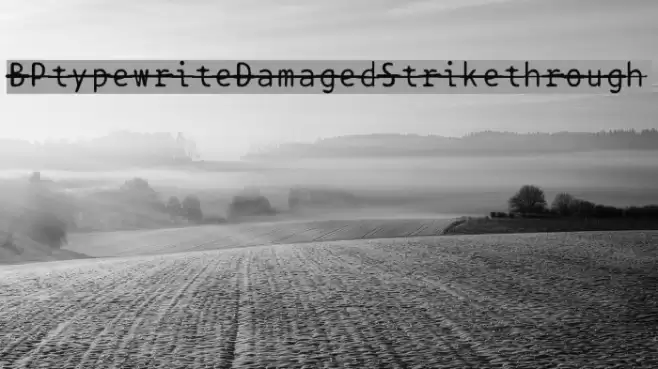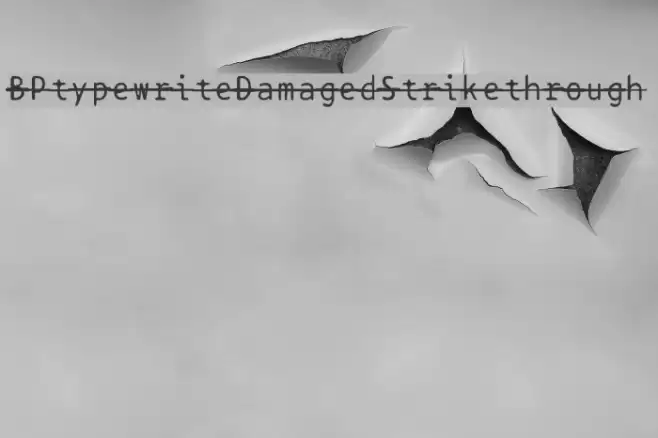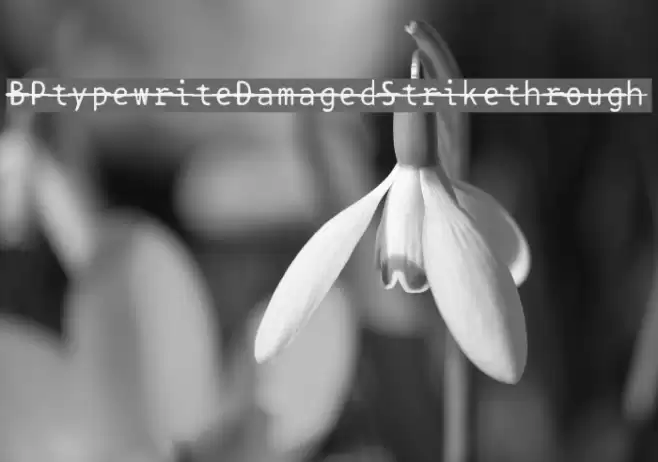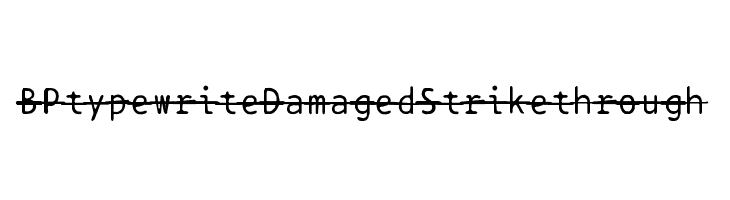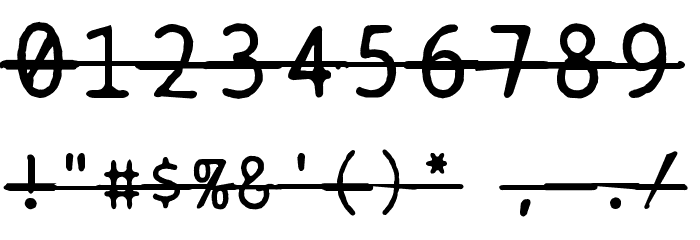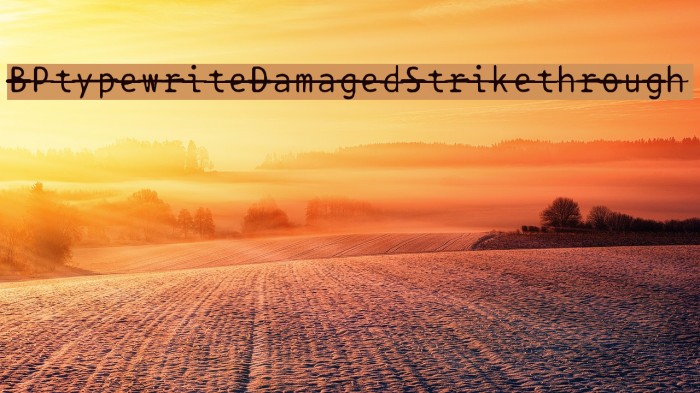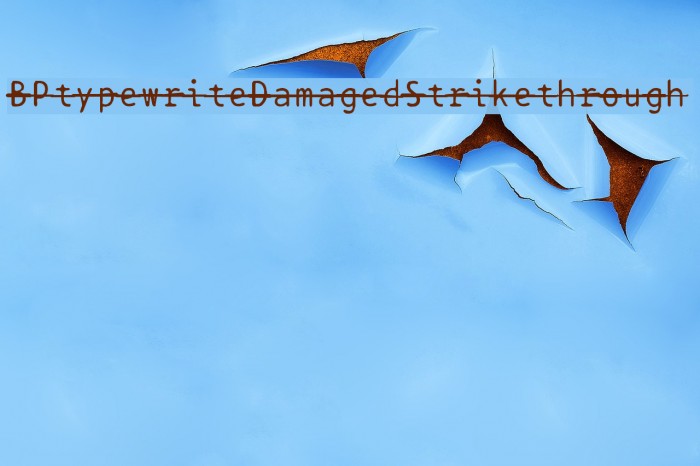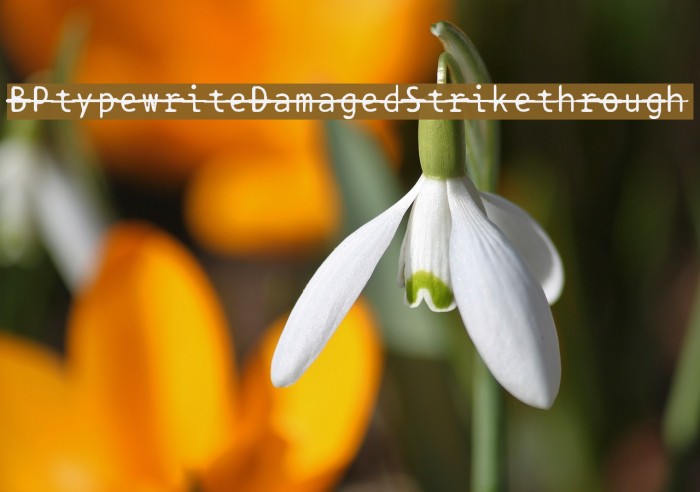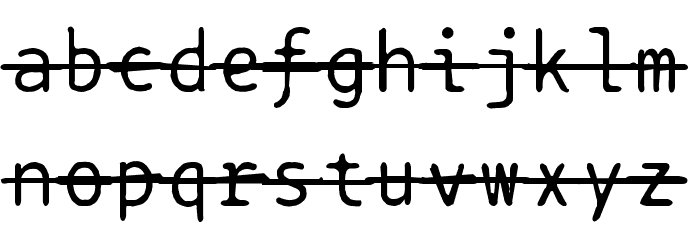
BPtypewriteDamagedStrikethrough Font
BPtypewriteDamagedStrikethrough Description
This font features a unique typewriter style with a distressed, strikethrough effect across all characters. The uppercase and lowercase letters, as well as numbers and special characters, are uniformly crossed out, giving the appearance of a damaged or redacted document. The characters are monospaced, reminiscent of classic typewriter fonts, with a slightly uneven baseline that adds to the vintage and worn aesthetic. The strokes are consistent in width, providing a uniform look despite the strikethrough. This font is ideal for projects that require a retro or grunge feel, offering a distinct and eye-catching design element.
A distressed typewriter-style font with a strikethrough effect across all characters from Uncategorized fonts.
- Proposed Projects: Ideal for vintage-themed designs, artistic projects, or any creative work requiring a grunge or retro aesthetic.
- Overall Style: Vintage, Grunge
- Use Case: Artistic projects, Retro designs, Creative displays